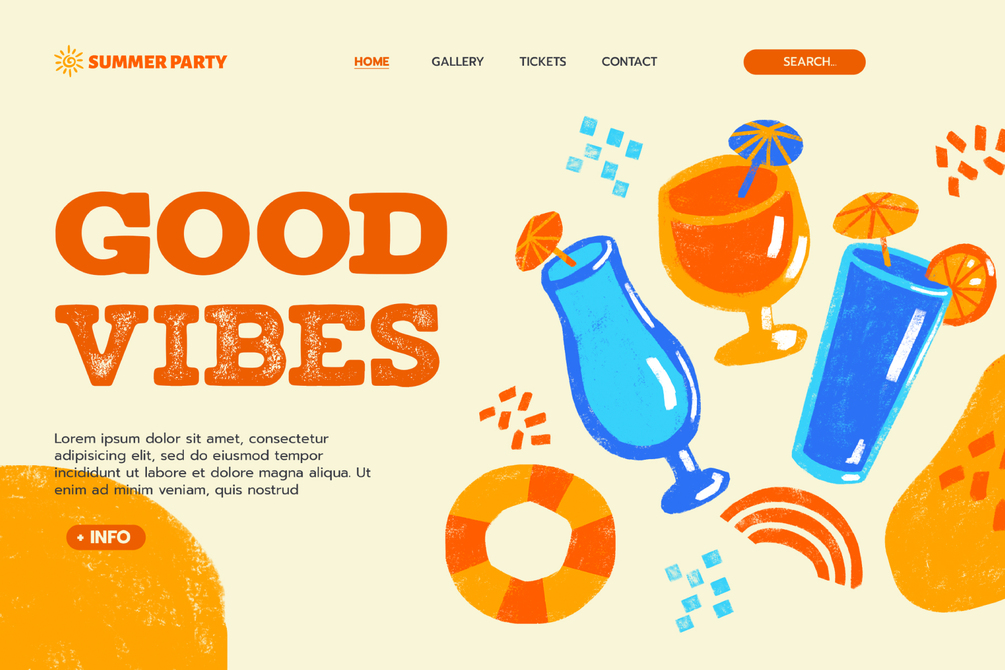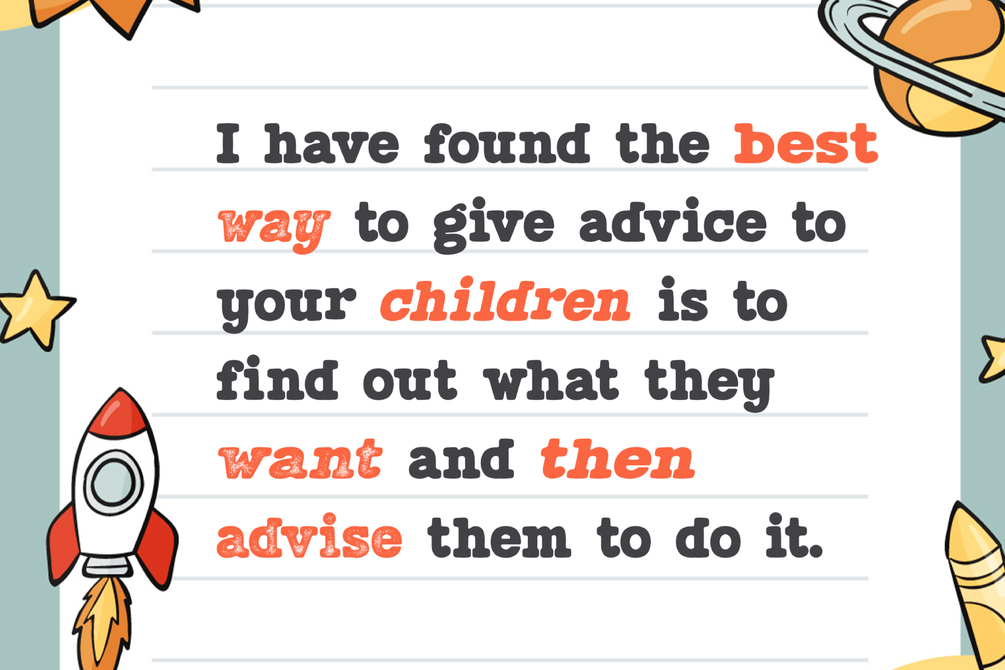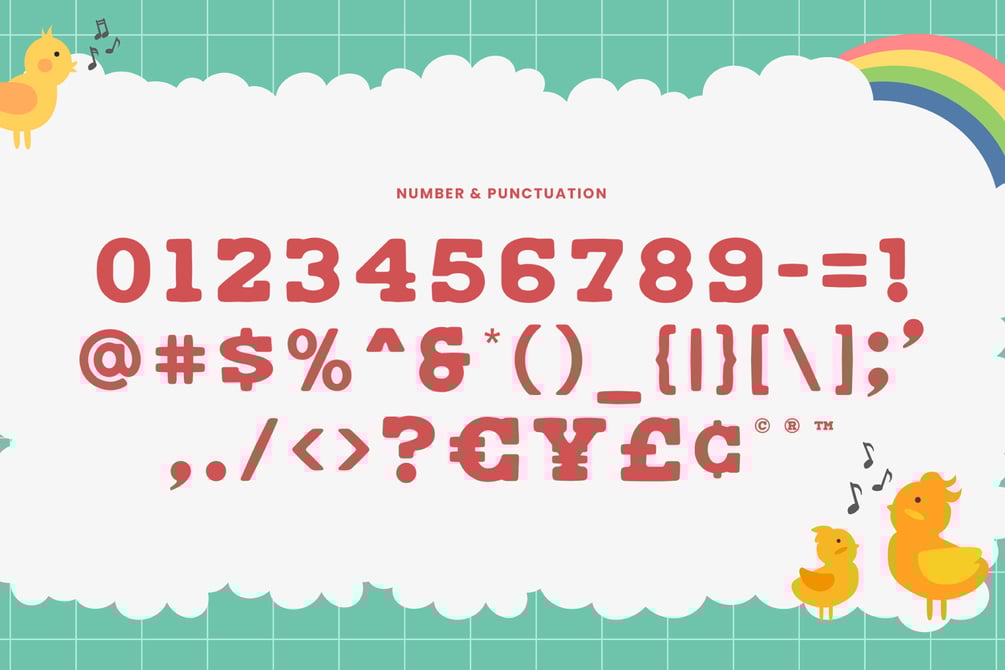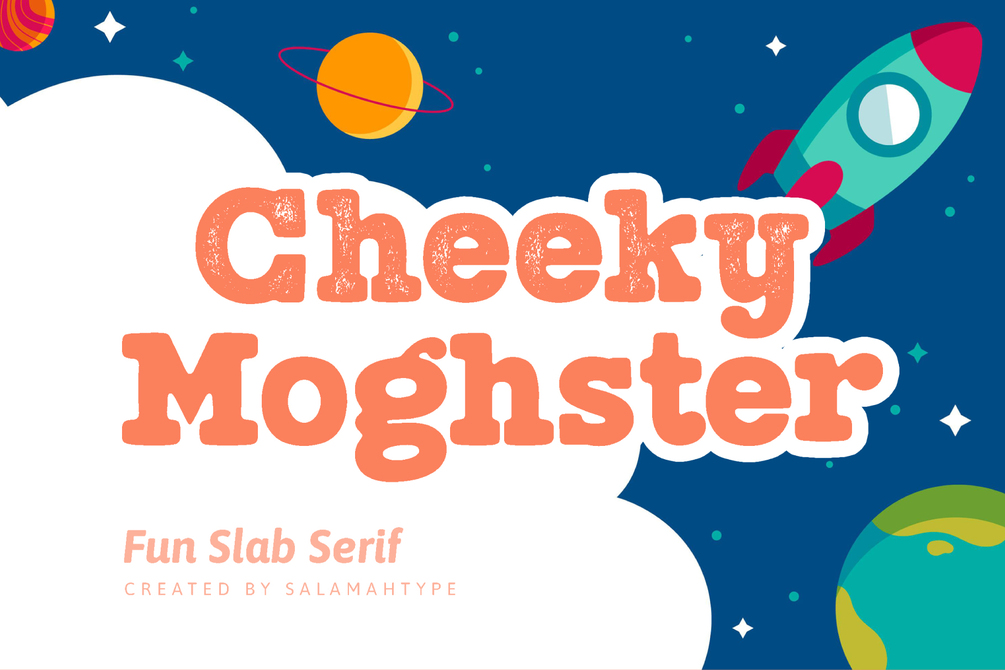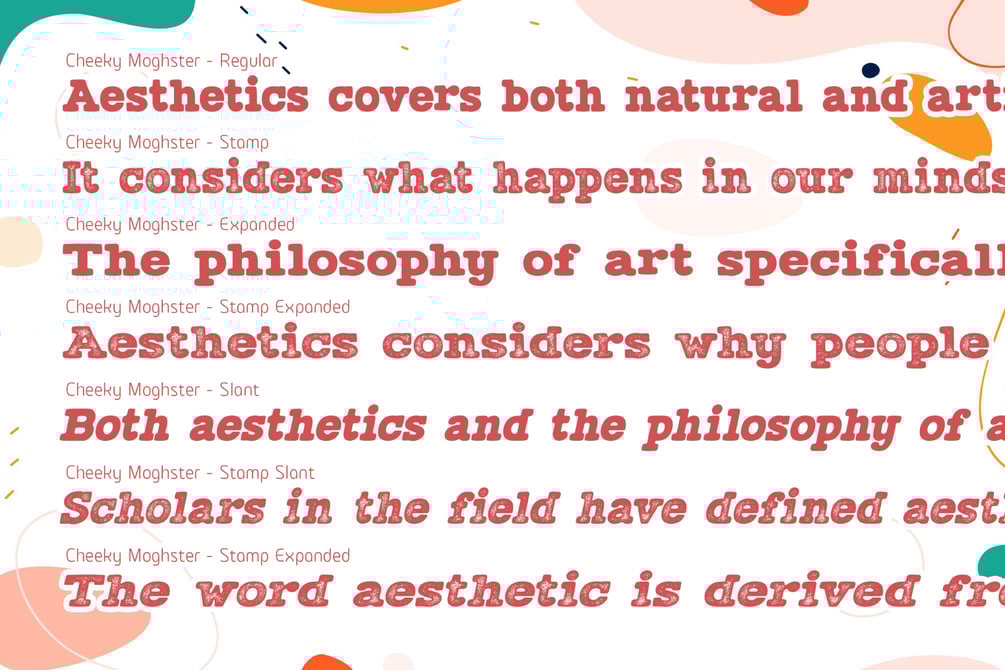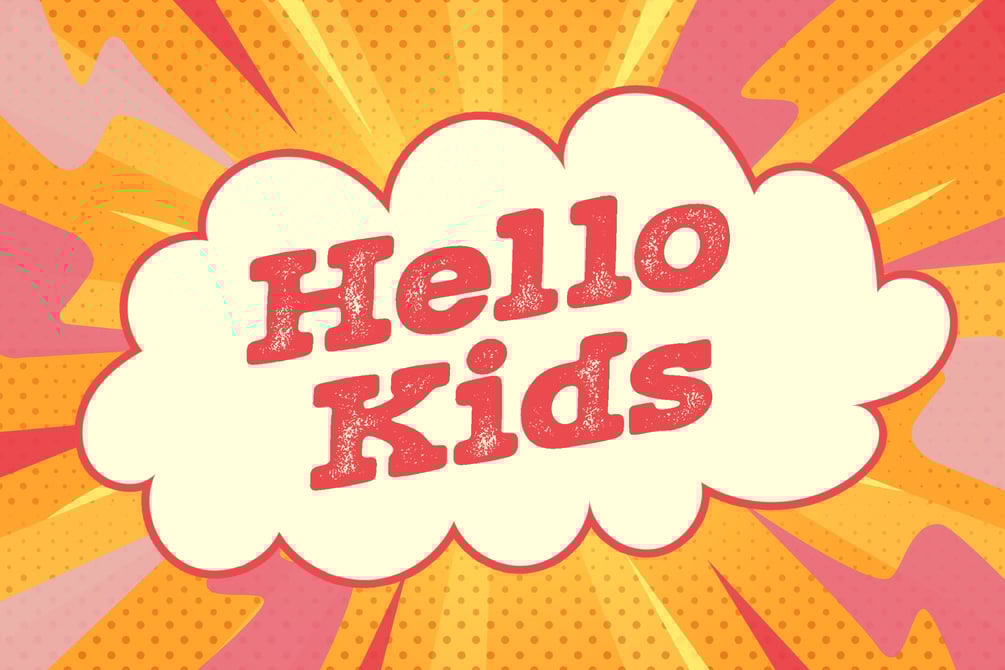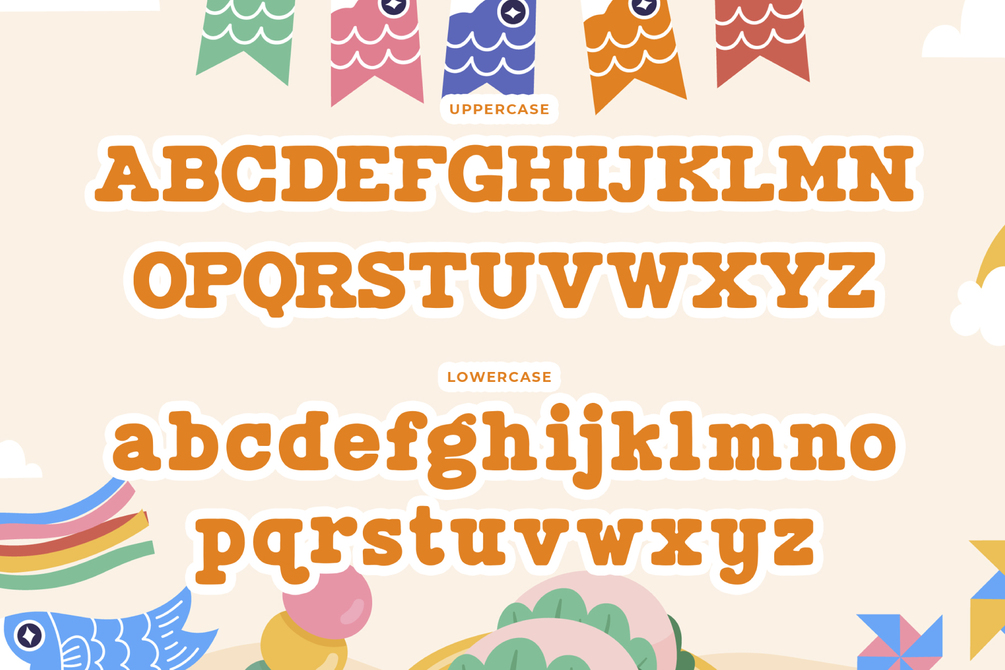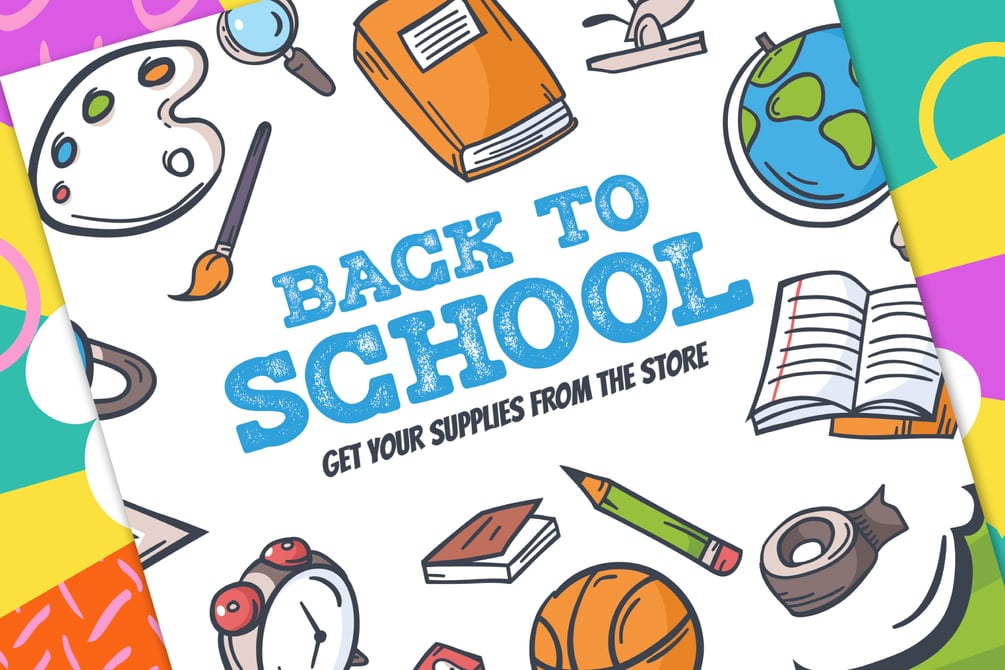
Cheeky Moghster - Vintage Tectured Font
Cheeky Moghster is a fun slab serif font mixed with vintage style. Cheeky Moghster are ready to be used to make your design projects more interesting. Its special stamp style gives your design a unique and classic touch.
– Uppercase and lowercase
– Punctuation and symbols
– Multilingual support
– Style: Regular, Stamp, Expanded, Slant